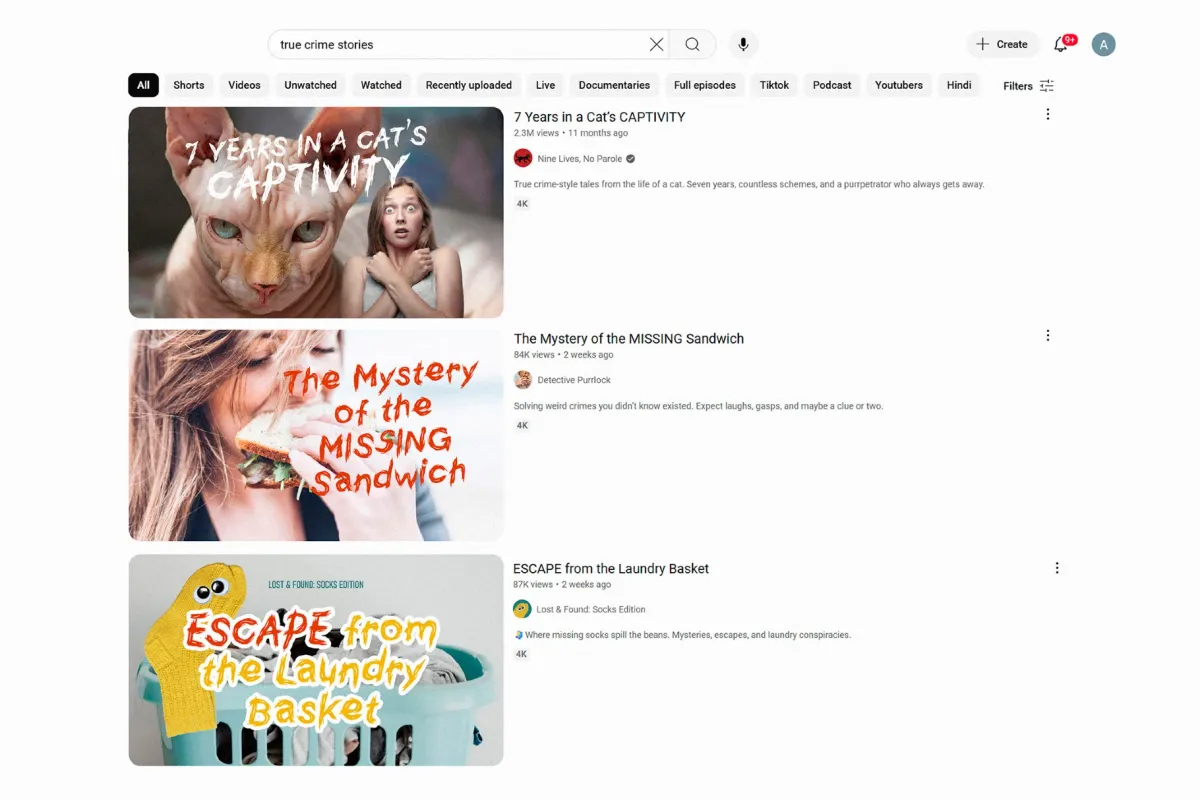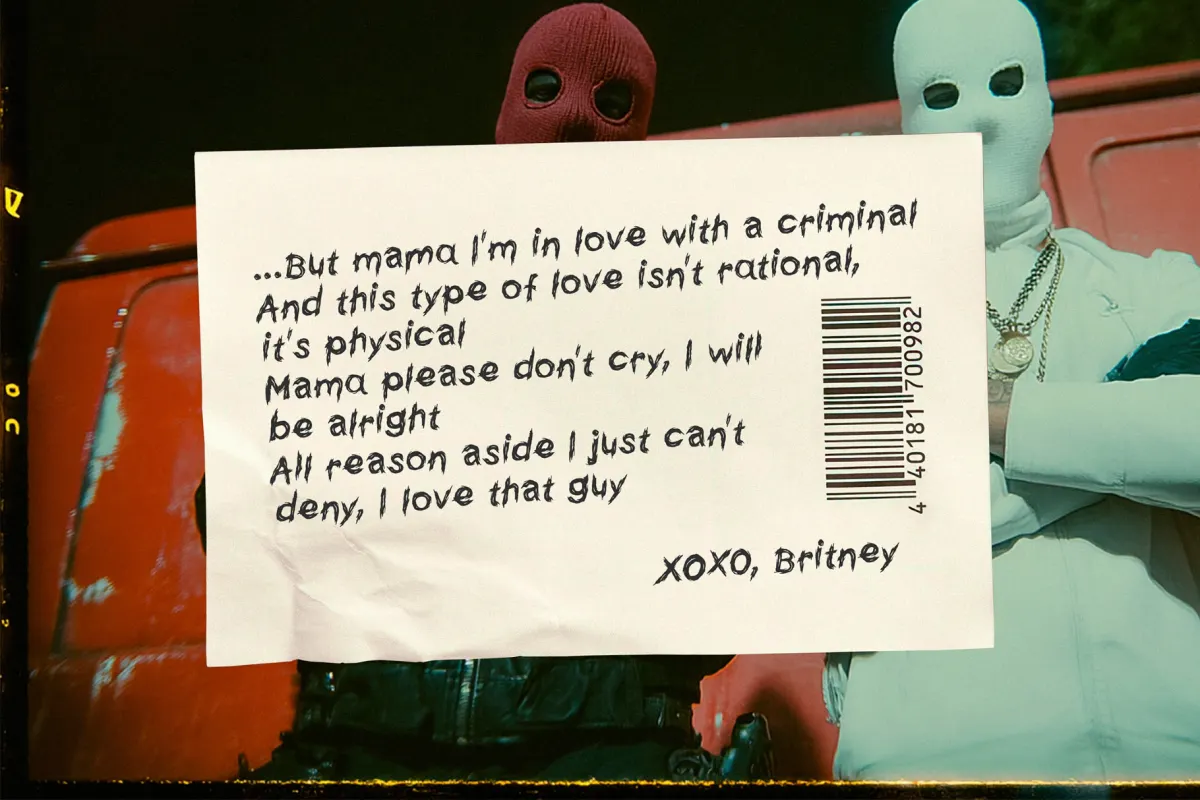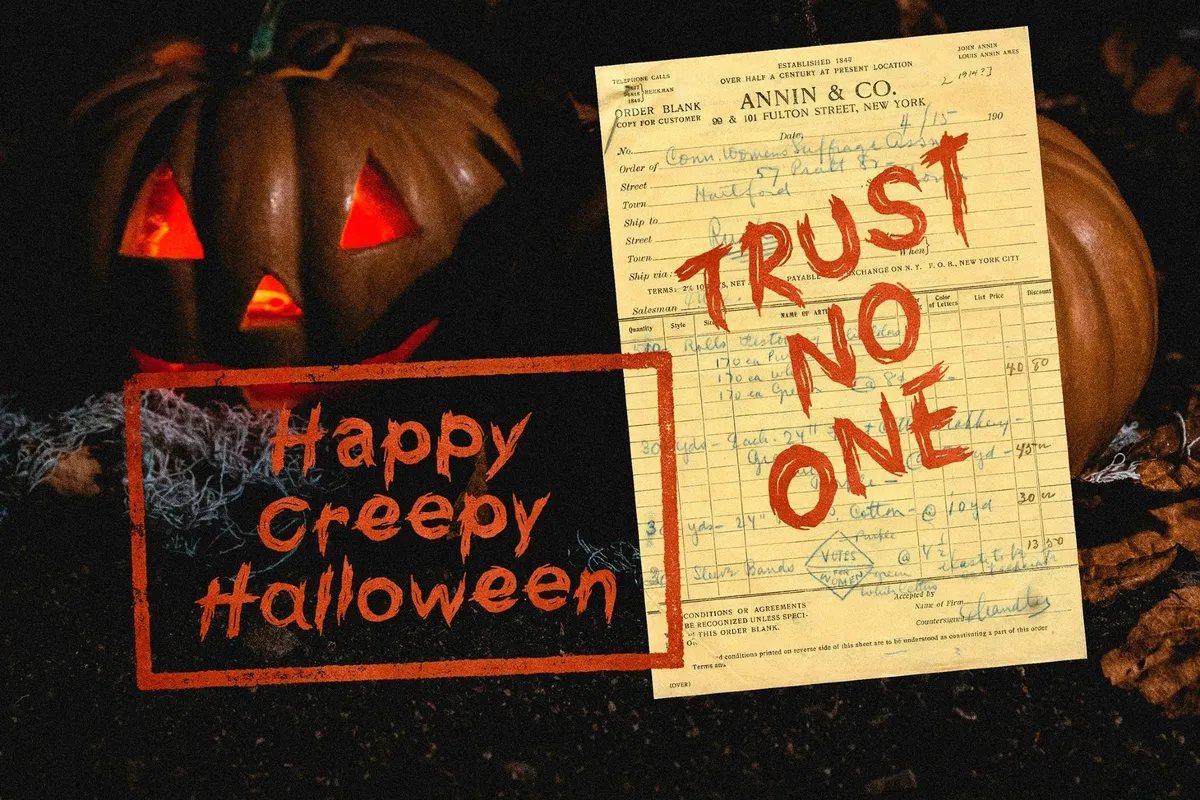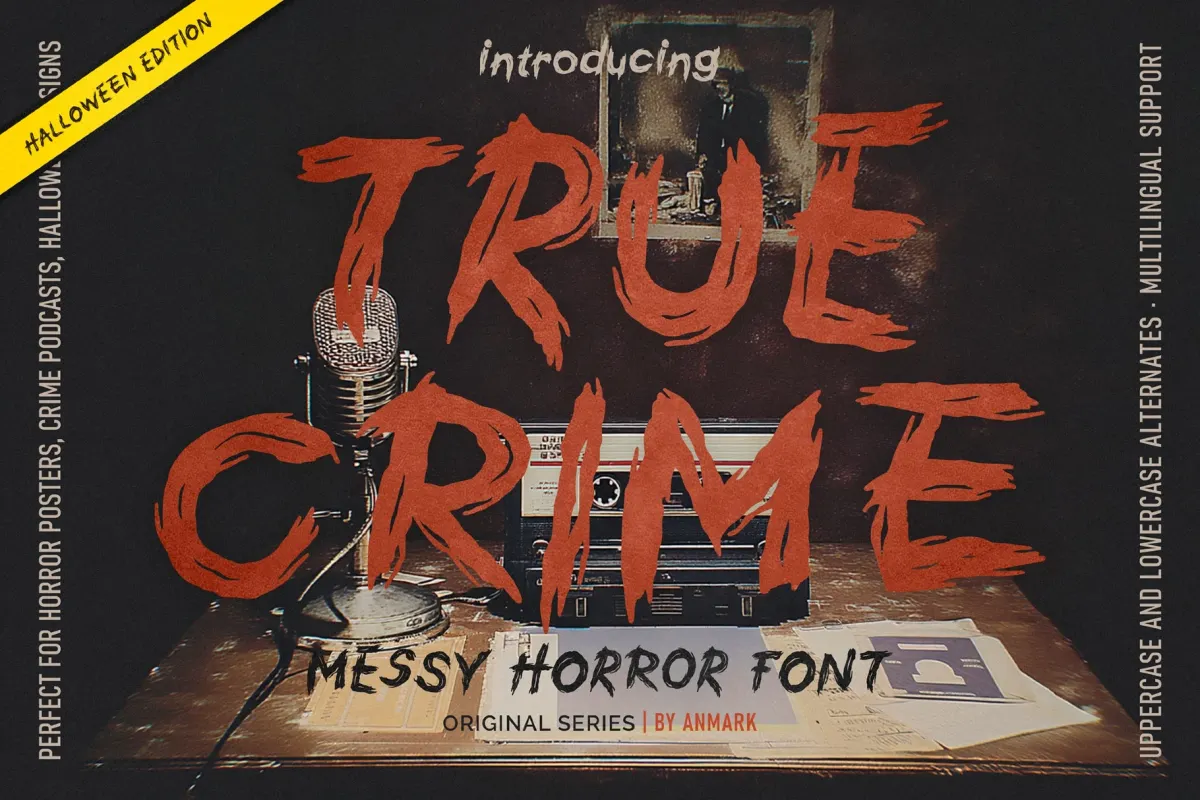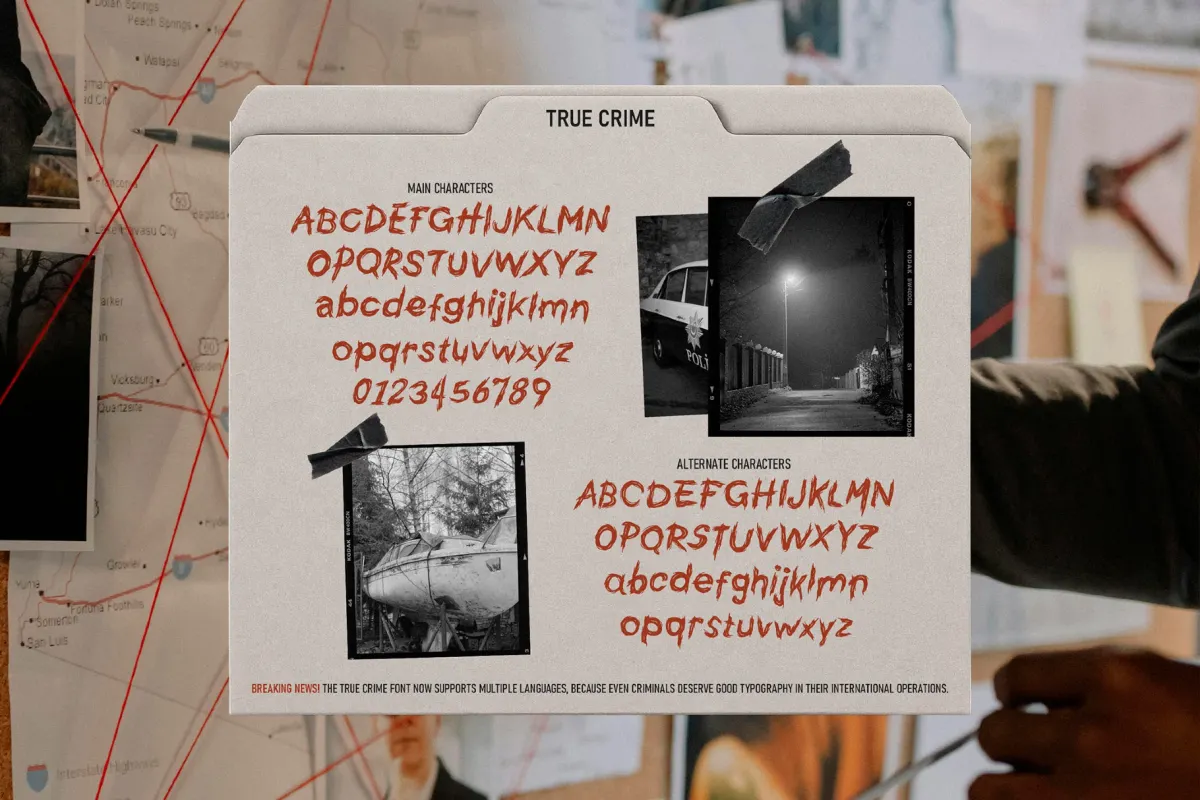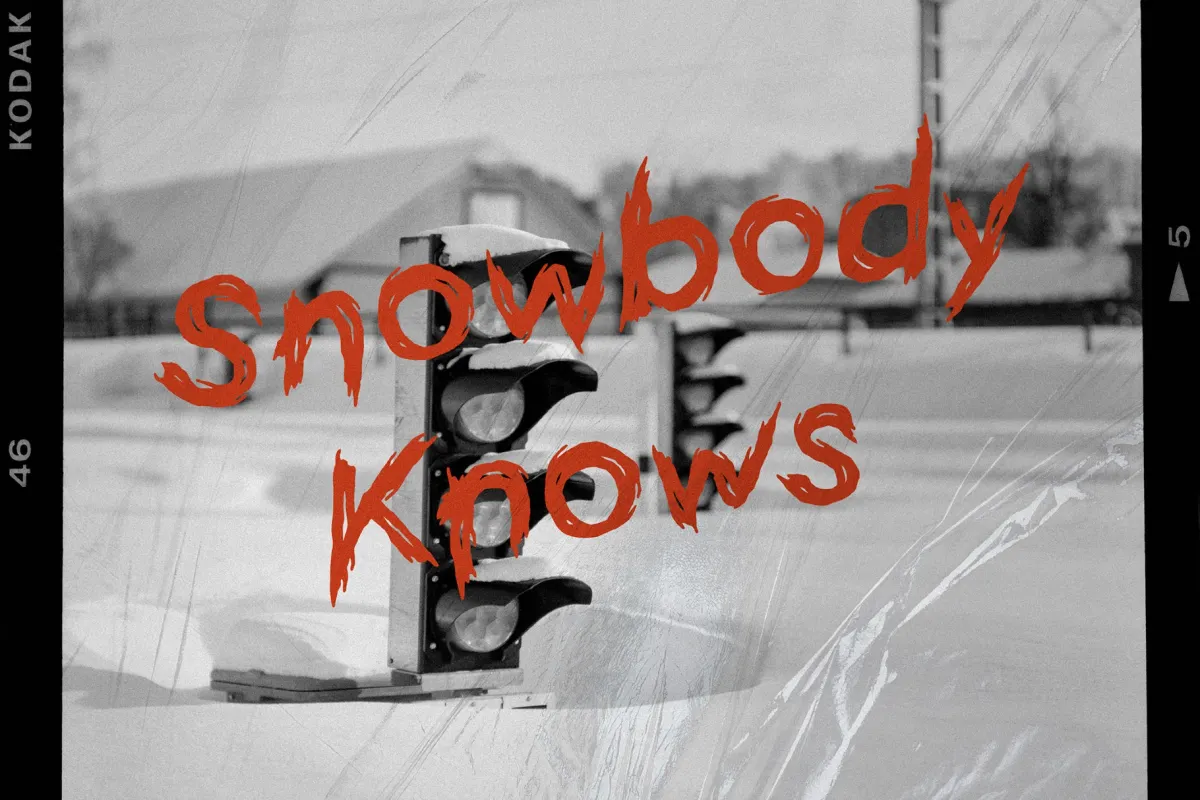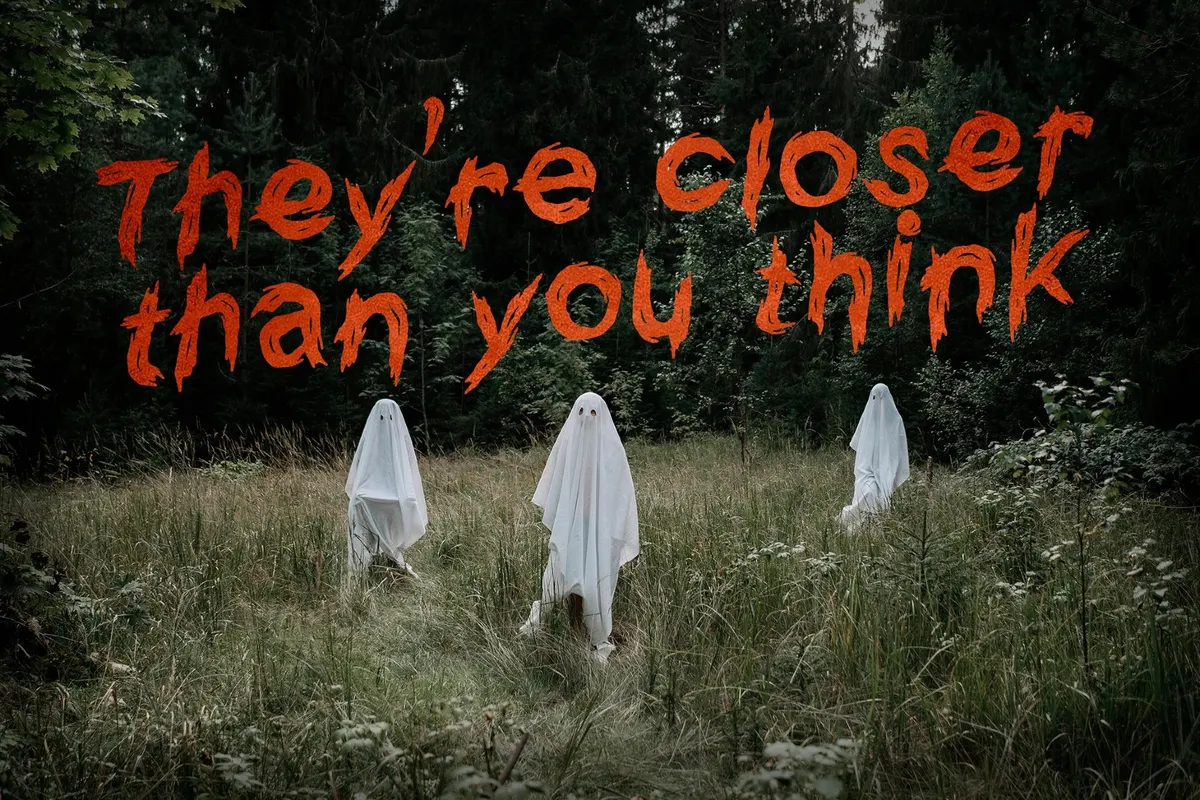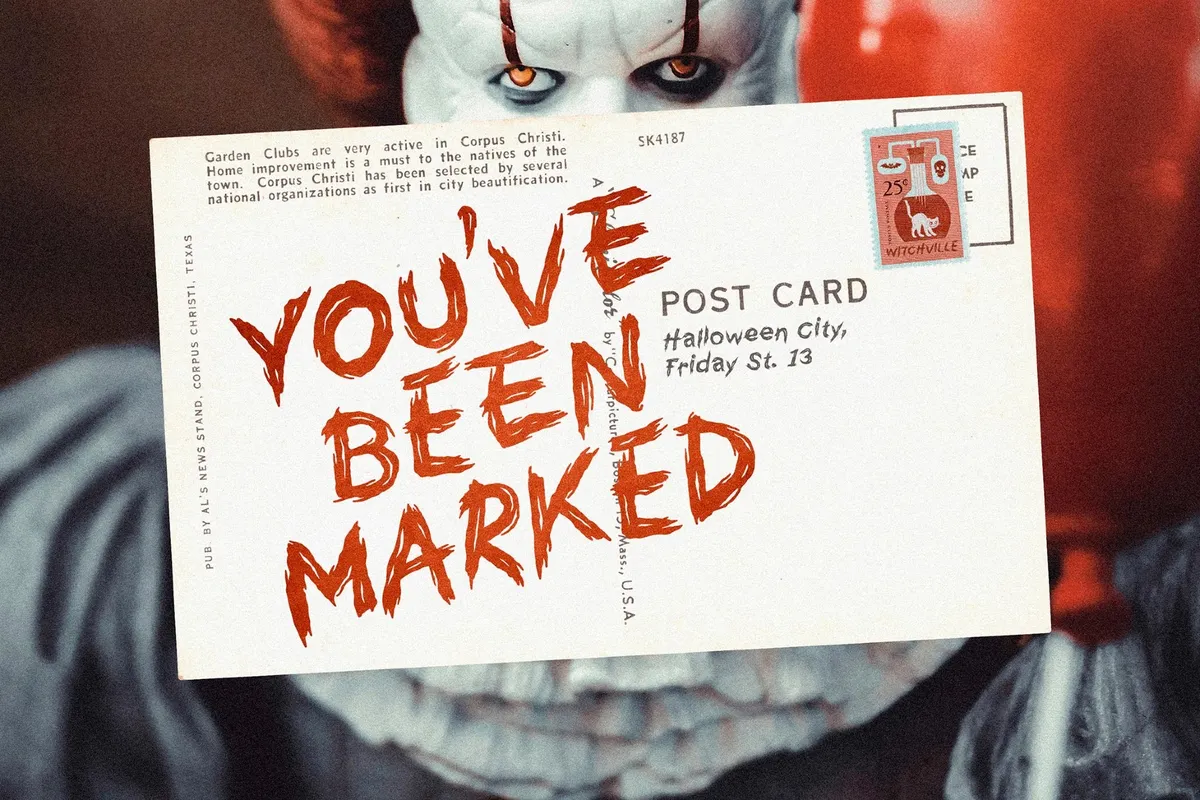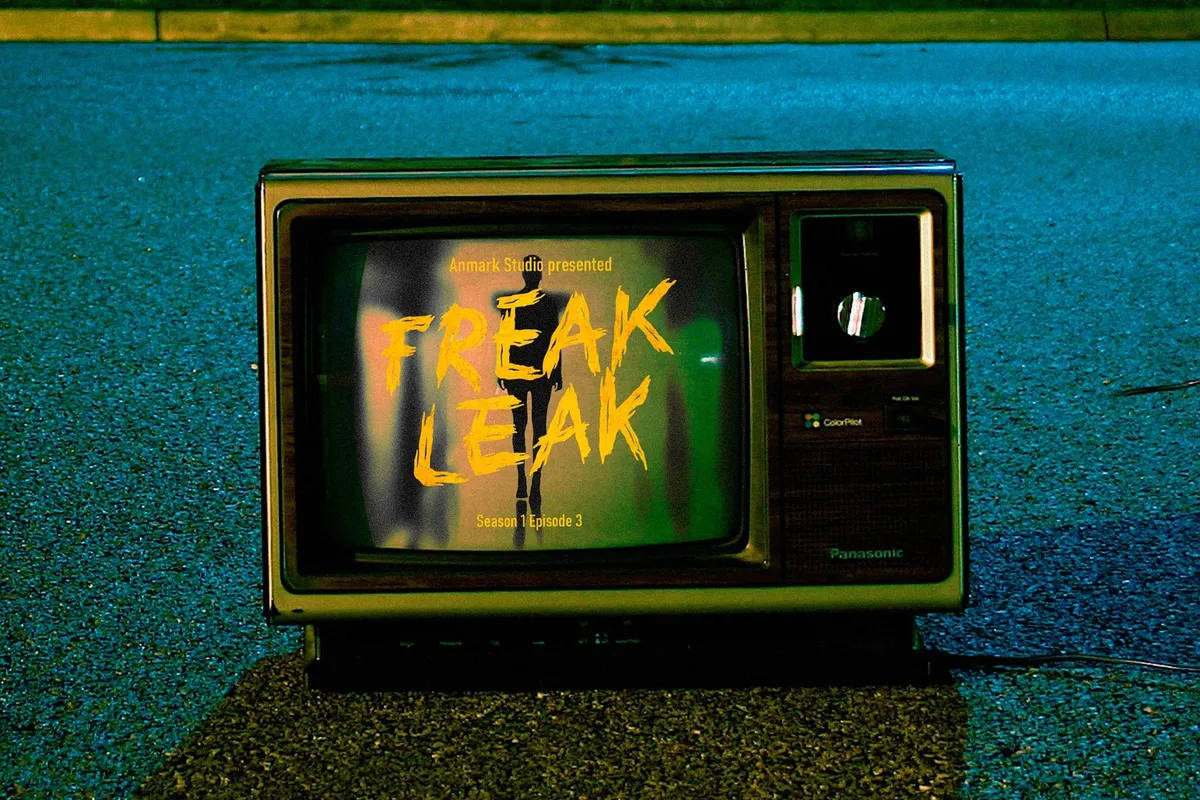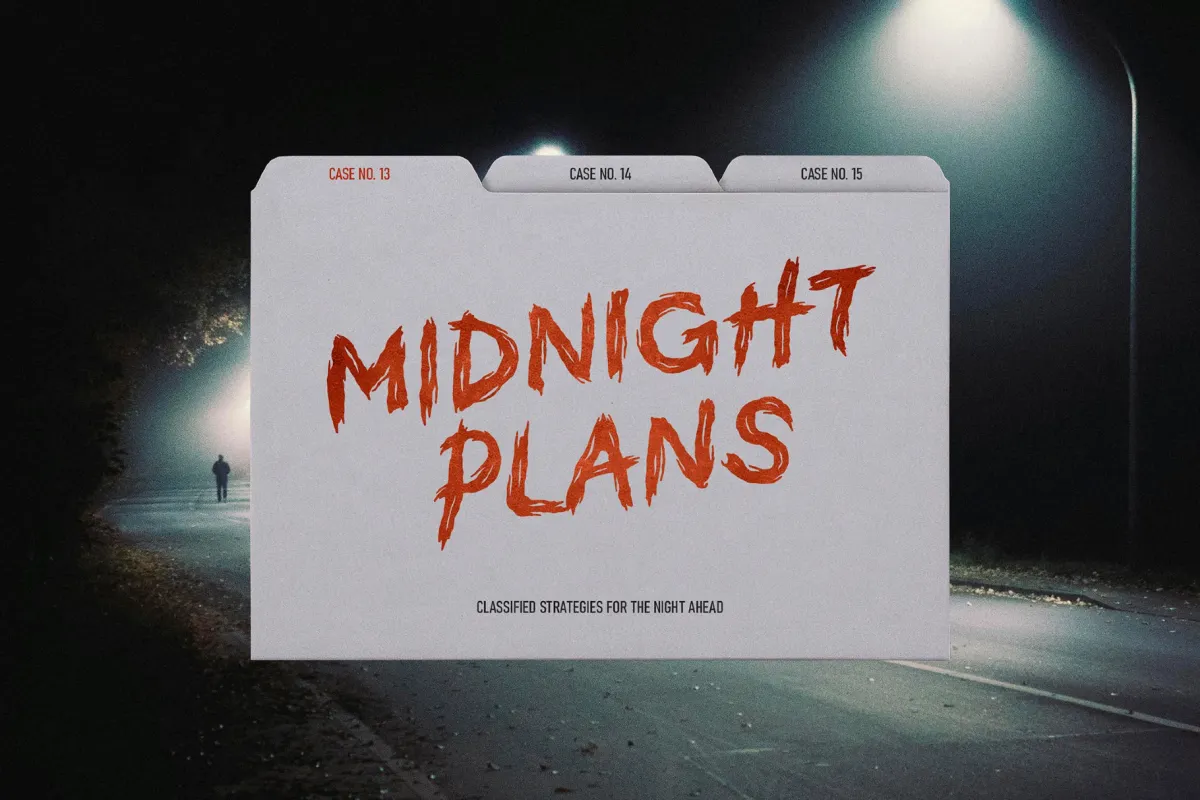
True Crime: Rough Messy Horror Font
TrueCrime
True Crime is a rough-brush type derived from VHS-era horror titles, tabloid headlines, and the kind of scrawled notes you pause on during a found-footage rewatch. The strokes land jagged and impatient, with dry-brush breaks, torn edges, and blunt spikes that feel closer to a marker dragged across cheap paper than to careful lettering. The tone is right between late-night cable horror and a thumbnail that promises “new evidence” — a little theatrical maybe.
- YouTube true-crime packaging — thumbnails, episode titles, “case file” overlays, chapter cards.
- Podcast cover art — show names, season labels, “bonus episode” tags, warning slates.
- Horror film posters — main titles, cast billing accents, festival laurels, quote pulls.
- Found-footage graphics — timestamp burns, location cards, on-screen notes, “REC” screens.
- Detective-board visuals — evidence labels, photo captions, suspect cards, red-string captions.
- Halloween event collateral — haunted house posters, ticket stubs, wristbands, wayfinding.
- Crime zines and indie prints — cover lines, pull quotes, section dividers, stamp marks.
- Apparel and merch — tees, stickers, patch text, tape-label graphics.
- Social promos — reels covers, story headers, countdown posts, announcement tiles.
- Uppercase and lowercase with alternate characters for both cases.
- Numerals, punctuation, and core symbols for titles and captioning.